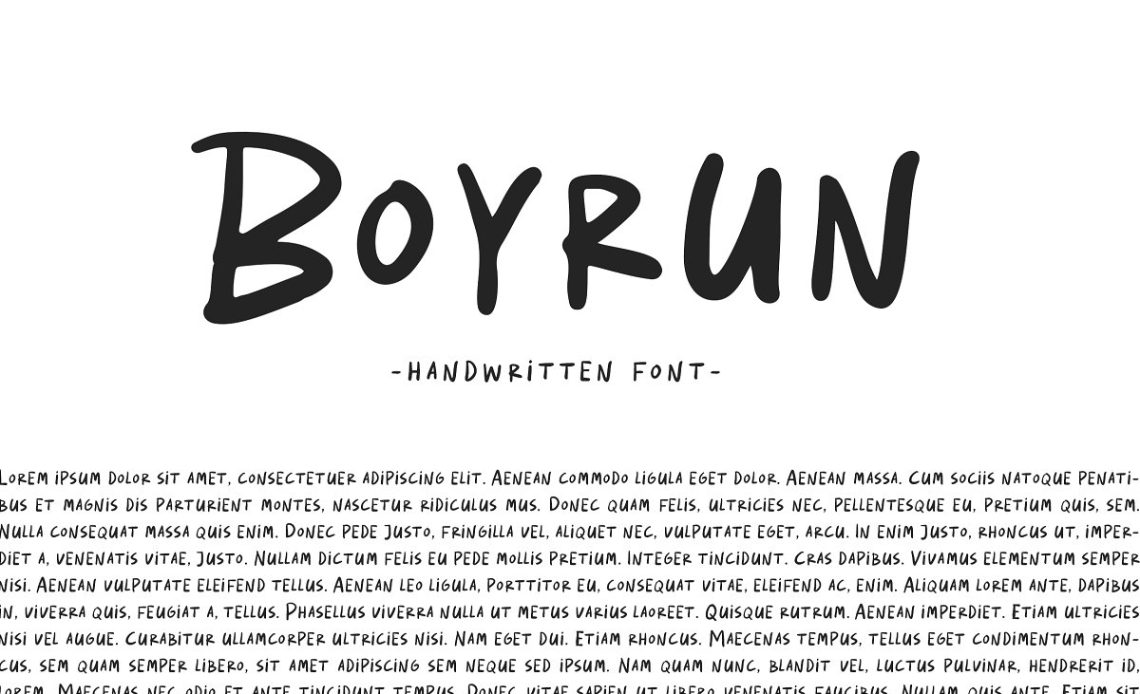
Looking for a stylish and unique font style to make your special occasion even more memorable? Introducing Boyrun, the perfect handwritten font for all your Happy Birthday celebrations!
Created by Weape Studio, this font family features all-caps style with a combination of uppercase and lowercase letters, giving your designs a natural handwriting feel. With its versatile design, Boyrun is perfect for creating stunning signature styles, logos, branding, posters, bands, apparel, photography, titles, social media posts, ad banners, book covers, product packaging, handwritten quotes, and advertisements.
Boyrun is designed to help you bring your creativity to life with its wide range of ligatures, allowing you to create unique designs that look like you wrote them yourself. The font family supports all capital letter characters, numerals, and has multilingual support, giving you the freedom to express your ideas in any language.